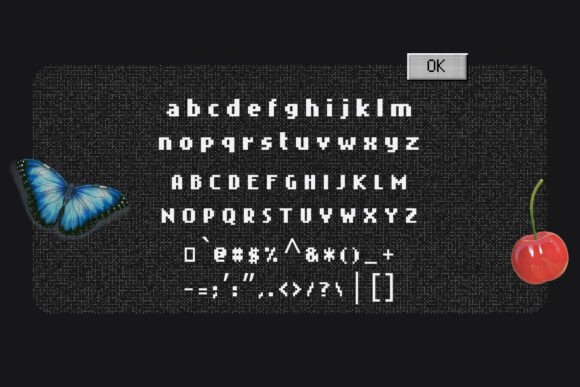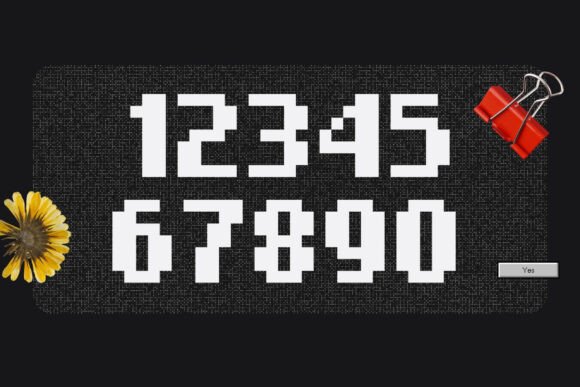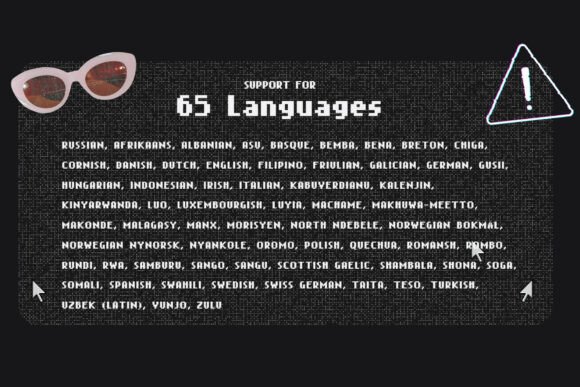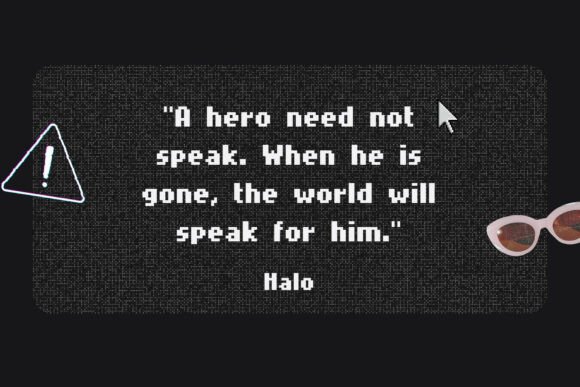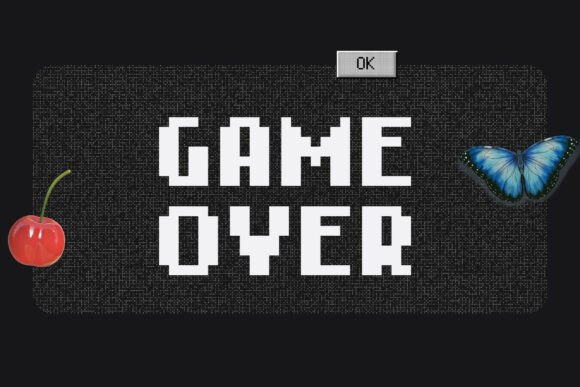
Introducing Digital 808: The Ultimate Modern Pixel Typeface
In the world of digital design, typography plays a crucial role in conveying a brand’s personality and aesthetic. For creators who love retro aesthetics with a clean, contemporary twist, the Digital 808 font is a game-changer. This modern pixel typeface is crafted with precision, making it a versatile choice for global design projects that require a unique blend of old-school charm and modern usability.
The Retro-Futuristic Appeal of Digital 808
Digital 808 is inspired by the classic 8-bit style of the early days of computing and gaming. Its crisp pixel edges, geometric rhythm, and refined structure bring a nostalgic feel to modern designs. However, unlike traditional pixel fonts, Digital 808 has a clean and contemporary twist that makes it perfect for a wide range of applications, from logos and gaming interfaces to thumbnails, posters, and apparel.
Key Features of Digital 808
- Crisp Pixel Edges: Digital 808’s pixel edges are carefully crafted to provide a sharp and clean look, even at small font sizes.
- Geometric Rhythm: The font’s geometric rhythm creates a sense of harmony and balance, making it perfect for designs that require a high level of visual appeal.
- Refined Structure: Digital 808’s refined structure ensures that the font is highly legible, even in complex designs.
- Versatile: The font is designed to be versatile, making it suitable for a wide range of applications, from digital products to tech branding.
Use Cases for Digital 808
Digital 808 is perfect for designers and crafters who want to add a touch of retro-futurism to their designs. Here are some use cases where Digital 808 shines:
- Logos: Create a bold and memorable logo that stands out from the crowd with Digital 808’s unique blend of retro and modern style.
- Gaming Interfaces: Add a touch of nostalgia to your gaming interfaces with Digital 808’s pixel-perfect design.
- Thumbnails: Create eye-catching thumbnails that grab attention with Digital 808’s bold and readable design.
- Posters: Design stunning posters that blend old-school charm with modern usability.
- Apparel: Create unique and stylish apparel designs that showcase your brand’s personality.
- Digital Products: Add a touch of retro-futurism to your digital products, such as ebooks, courses, and software.
- Tech Branding: Create a strong and memorable brand identity with Digital 808’s modern pixel design.
Why Choose Digital 808?
So, why choose Digital 808 over other fonts? Here are some compelling reasons:
- Unique Style: Digital 808 offers a unique blend of retro and modern style that sets it apart from other fonts.
- High Legibility: The font is designed to be highly legible, even at small font sizes.
- Versatile: Digital 808 is suitable for a wide range of applications, making it a great addition to any designer’s toolkit.
- Easy to Use: The font is easy to use and can be integrated into any design project with ease.
Digital 808 is a modern pixel typeface that is perfect for designers and crafters who love retro aesthetics with a clean, contemporary twist. Its crisp pixel edges, geometric rhythm, and refined structure make it a versatile choice for global design projects. Whether you’re aiming for vintage arcade vibes or futuristic pixel-perfect layouts, Digital 808 delivers bold readability and unmistakable retro personality. So, why wait? Get your hands on Digital 808 today and take your designs to the next level!